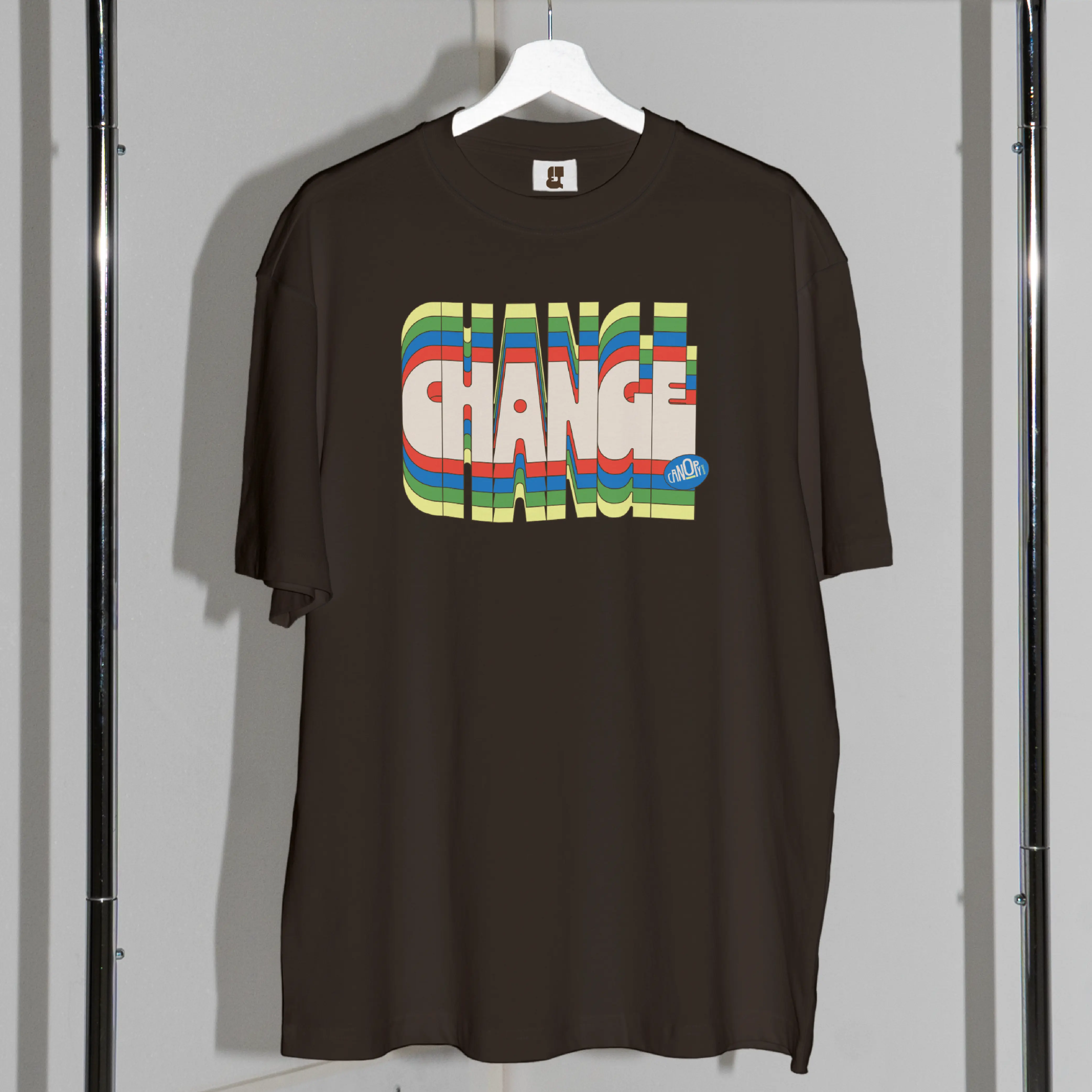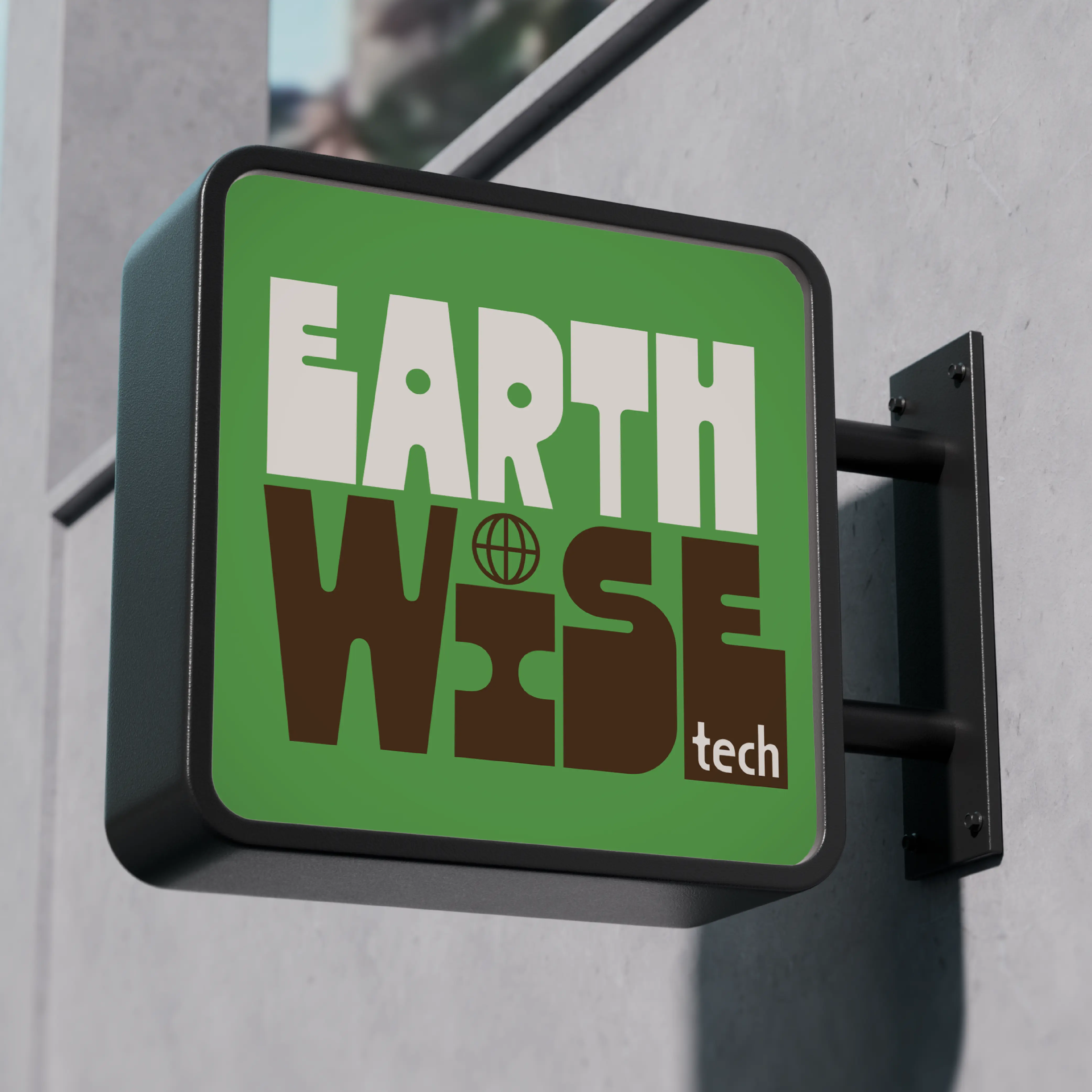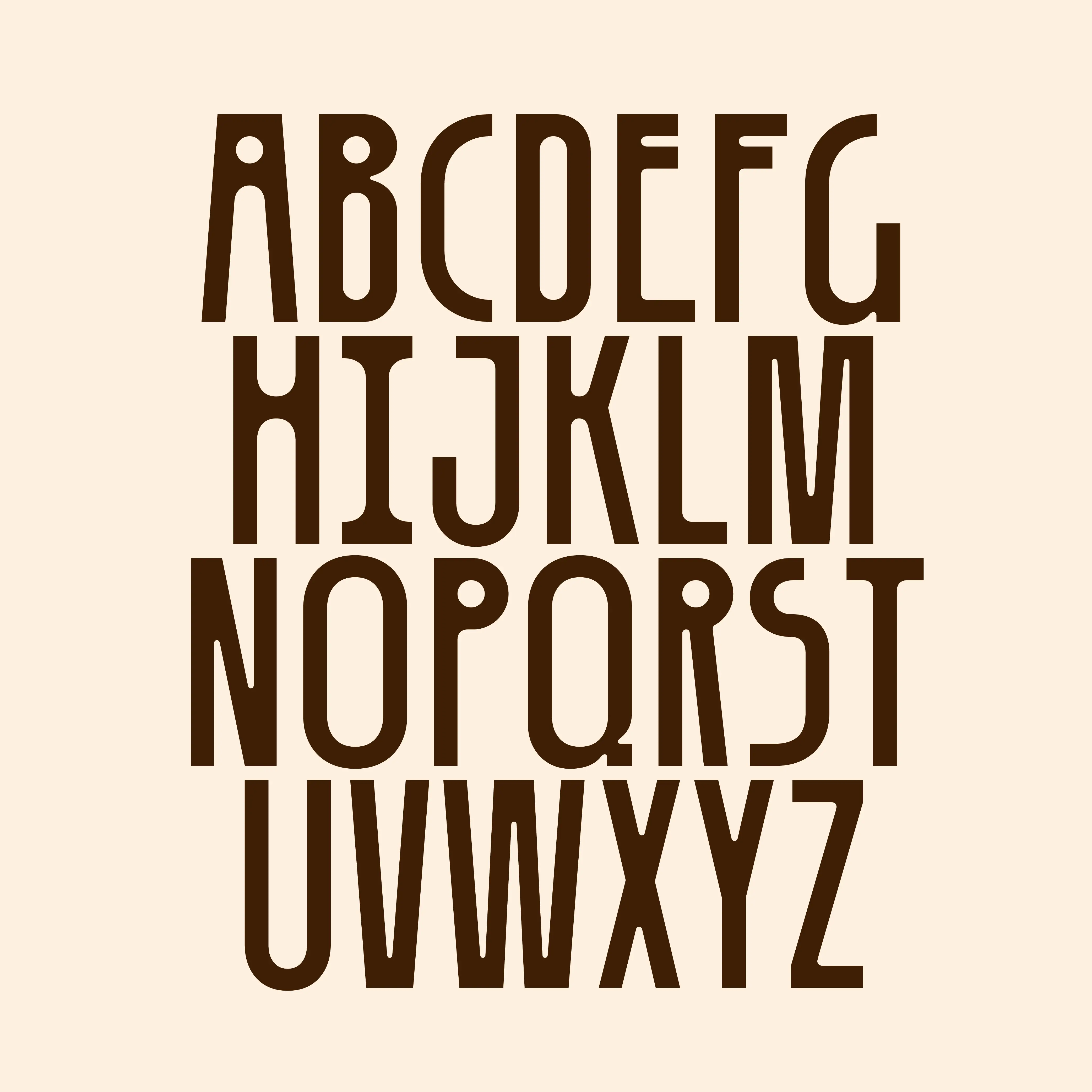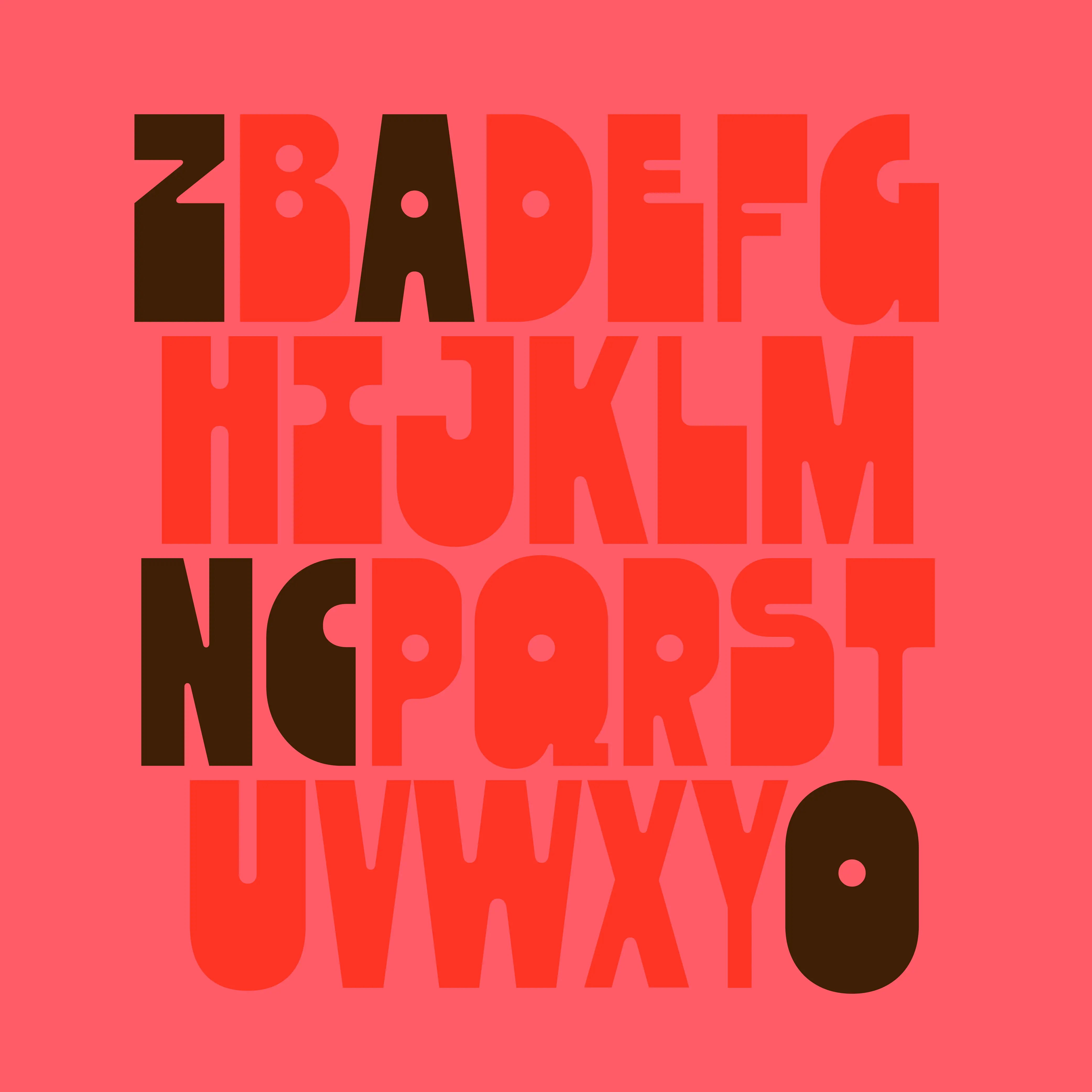
Zanco Variable Font
Zanco is a narrow, expressive variable display font by In-House, balancing elegance, awkwardness, and nostalgic charm for brands and posters.
Zanco Variable Typeface used on a climate change ooh billboard that reads Change Climate Change, Act Now.
Zanco – Variable Font
Zanco is a celebration of delicious contradictions; of elegance and awkwardness, youth and sophistication, all rolled up into a single variable display type. Standing tall and narrow, it features stressed curves, softened internal angles and unconventional weight distribution that effortlessly falls just right. The typeface goes from lanky to heavy, thickening shadows filling in the bottoms halves, which is especially lovely on interlocking descenders.
Zanco Typeface sample with 3 weights ABC by In-House International
Zanco specimen with stacked multicolor word Zanco.
Zanco numeric specimen showing 1, 2, and 3 in bold display figures.
Zanco uppercase alphabet specimen in tall narrow display letterforms.
Zanco lowercase alphabet specimen in rounded display letterforms.
Zanco condensed uppercase alphabet specimen with tall narrow letters.
Zanco lowercase alphabet specimen with bold rounded letters.
Canopy climate event poster with Zanco lettering and illustrated leaves.
Red brick wall poster reading Cut Emissions KTHX using Zanco lettering.
Brick wall poster reading Small Changes Big Impact in Zanco lettering.
Framed poster reading Climate Do or Die using Zanco lettering.
The typeface is named after its long, stilt-like limbs; the zancos worn by acrobats towering above joyful crowds. Across the full family, characters stand tall in a range of styles: from heavy-footed and funky platforms to slim lifts that lend it an ethereal, art nouveau vibe. The effect is curved, melty, and a little nostalgic.  You get the relaxed, versatile, legible, sensuous and useful, all in one.
It’s perfect for brand identities with heart, packaging, and genuine, effortless messaging. Posters, billboards and motion graphics that fly off the screen.
Zanco climate campaign sticker sheet with colorful slogans and icons.
White tote bag reading Eat More Veg in Zanco lettering.
Black T-shirt printed with Change Climate Change in Zanco lettering.
Zanco specimen spelling Hi! in large colorful display letters.
Zanco specimen reading Bold and Thin in tall display letters.
Zanco specimen graphic reading 168 Glyphs.
Zanco was designed by Alexander Wright at In-House Int’l studio foundry, and developed by Rodrigo Fuenzalida. In-House International is a creative agency delivering branding breakthroughs for game changers.
Wide billboard reading Every Drop Counts for a climate-smart water message.
Lightbox sign reading The Green House in Zanco lettering.
Outdoor sign reading Earth Waste Tech in Zanco lettering.
Hanging event banner for Canopy Getting Climate Moving.
Canopy event lanyard badges using Zanco typography.
Black T-shirt detail printed with Canopy event lettering.
Zanco specimen reading Since 2024 in colorful display letters.
Zanco ampersand specimen with oversized green punctuation.
Zanco alphabet specimen with tall display capitals on a pink background.